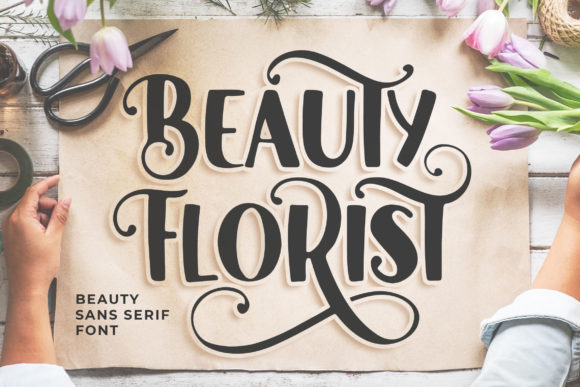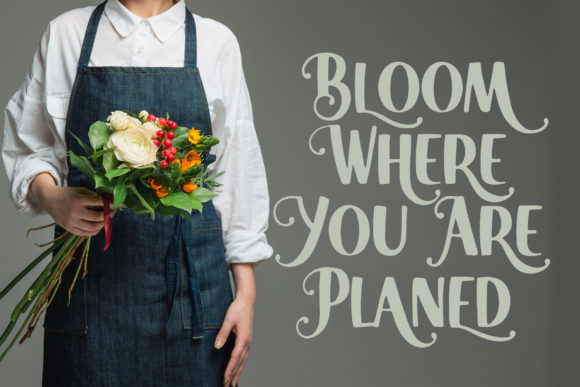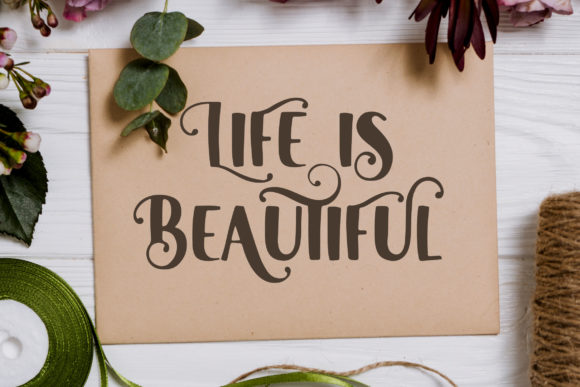
Beauty Florist Font
About the Beauty Florist Font
Explore the possibilities with Beauty Florist Font, a font that offers both beauty and functionality. Beauty Florist is a joyful and elegant sans serif font. Distinct and incredibly versatile, this font will be the ideal choice for a wide range of designs.
Beauty Florist excels in display applications such as logos, headlines, short-form text on packaging, and posters where its elegant curves and joyful character shine. It’s less suitable for body text or lengthy paragraphs; its distinct letterforms can become tiring to read in extended passages. Avoid using it in user interfaces or situations requiring high legibility at small sizes.
Its inherent elegance pairs well with classic serif fonts like Garamond or Didot for a sophisticated contrast, or with a clean geometric sans-serif like Futura for a modern feel. A playful script font, such as Allura, can add a touch of whimsy, creating a balanced and harmonious design system.
The font’s personality is best described as cheerful yet refined. It’s ideal for brands focused on beauty, fashion, floral design, or other industries that value both sophistication and approachability.
Beauty Florist Font Usage Examples
Beauty Florist Font Example